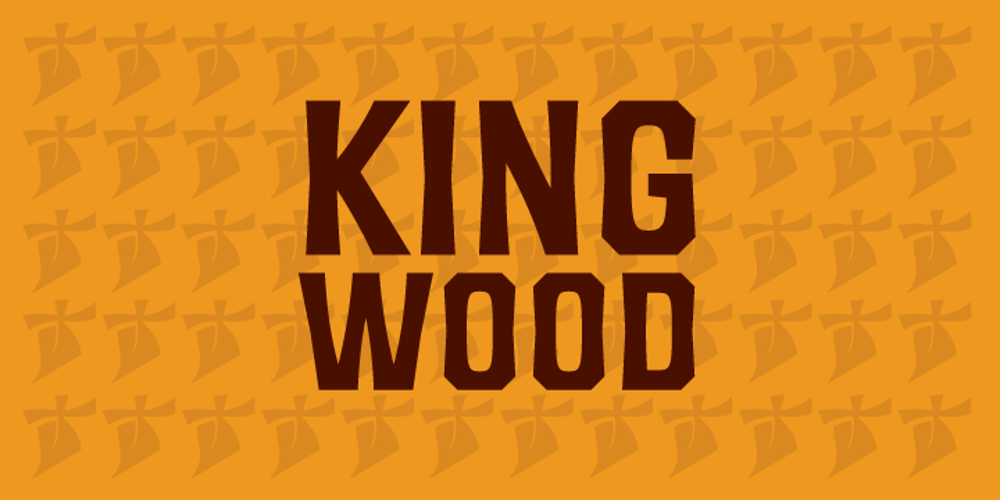
King Wood Font Family was designed by Kevin Allan King and published by Canada Type. King Wood contains 19 styles and family package options. King Wood is a gothic wood type with a Tuscan flair. Equally at home in the west or the east, it manages to take reference of its ancestors in forging an identity of its own. King Wood is a great choice for the typographer looking for all of the aesthetic qualities of wood typefaces and the solid impact and functionality of gothic poster faces. Each of the three weights comes with a unicase variation, complete with ten biforms and their corresponding composites, which can be used interchangeably with the main capitals, and a standard lowercase in the three main fonts, allowing for several options when applying the typeface. The font has been drawn with minimal contrast in order to allow for a dense color and impactful appearance. Further distinction is given by deliberately wrapping sharp cut exterior forms around curved counter shapes, expressing tension and a personality impossible to ignore. And, as everyone knows, no good wood type is complete without some ornaments to complement the setting. This is why we are giving the King Wood Extras font away free with any single or family purchase.